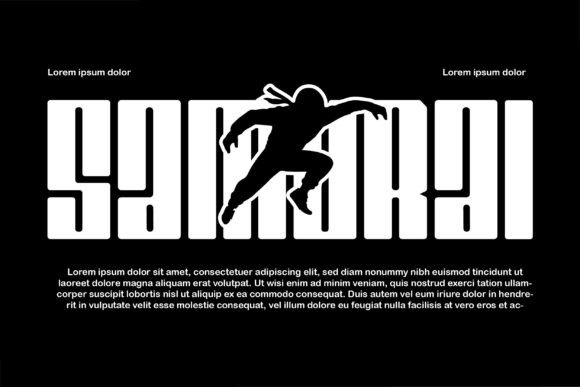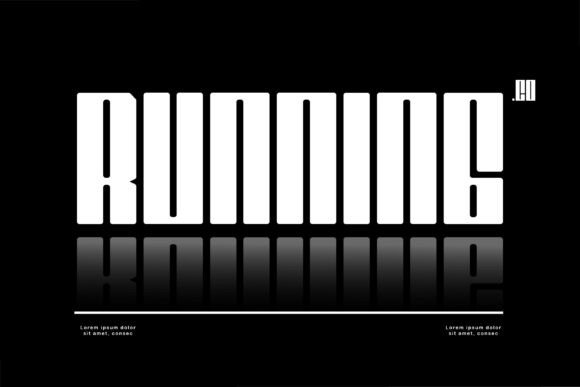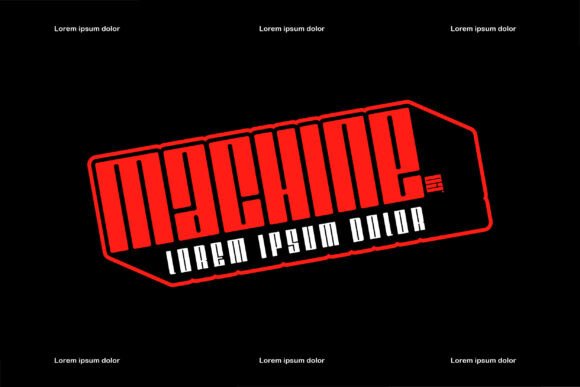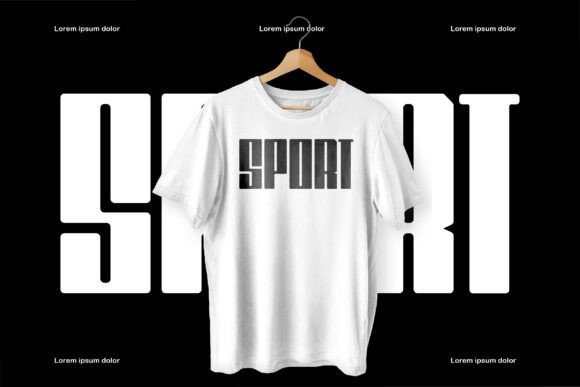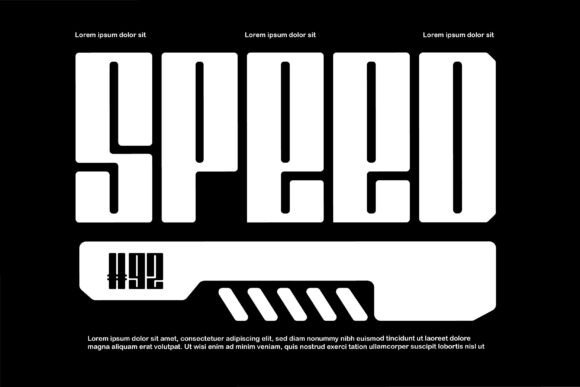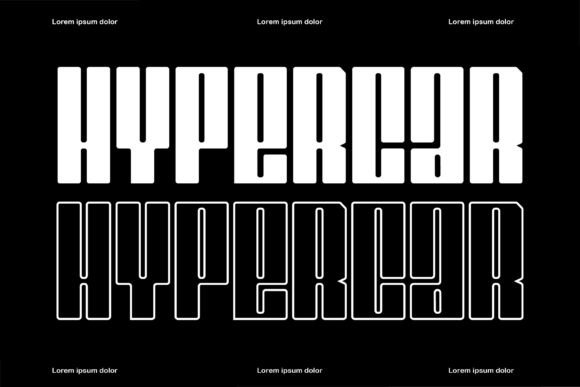
Introduction to Hi Speed Font
Hi Speed is a sporty and modern display font.
This cheerful conceptual typeface will stand out in a variety of contexts This font is perfect for all sports needs, such as Motor Racing, Car Racing, Football, Basketball, and other sports.